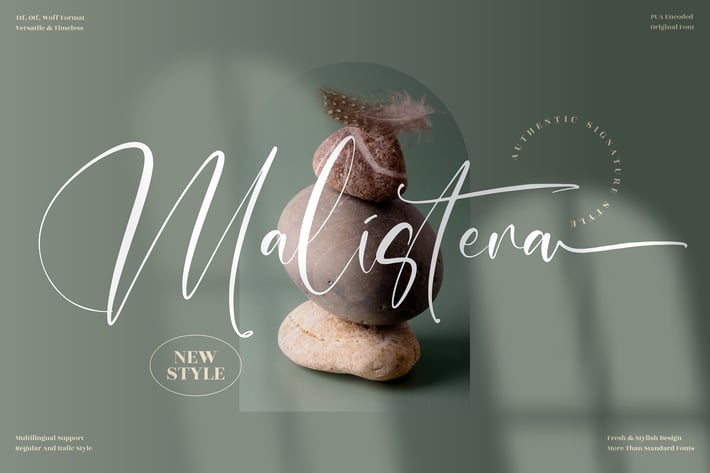
Malistera Signature Font
Malisterna Signature is a soft, elegant signature script with long flowing strokes and a calm, modern feel. Its handwritten curves pair beautifully with minimalist layouts, making it perfect for lifestyle branding, beauty visuals, and social media content that needs a refined, organic signature touch.
Modern signature script with smooth, elongated strokes
Elegant, readable letterforms ideal for logos and name marks
Natural handwritten feel with subtle, stylish character
Great for both digital designs and premium print projects
Beauty, wellness, and lifestyle branding
Personal logo signatures & business cards
Social media posts, reels covers, and moodboards
Wedding invitations & soft romantic stationery
Packaging, labels, and product branding
Editorial titles, posters, and promotional materials
Calm signature strokes for brands that feel soft, modern, and refined.